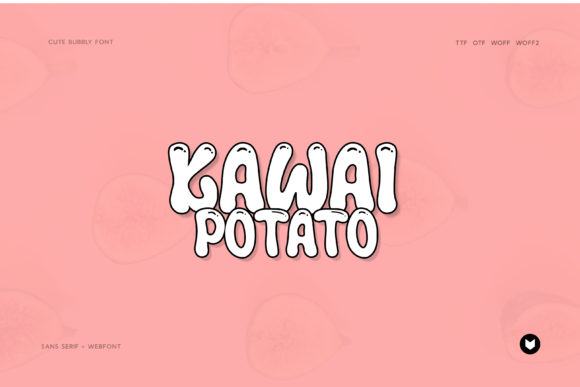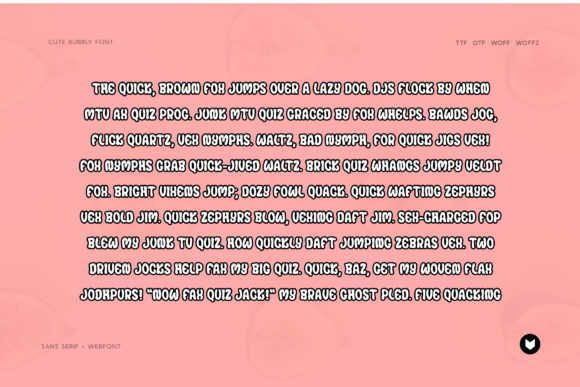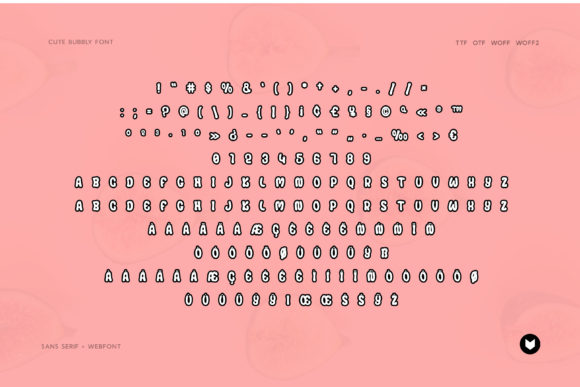
Juicyfig Font – Free Download
Introduction to Juicyfig Font
Juicyfig is a fun, bubbly and cute display font.
| ๐ Product Name | Juicyfig Font |
| ๐ค Author | Foxtype |
Key Features of Juicyfig Font
Why Choose Juicyfig Font?